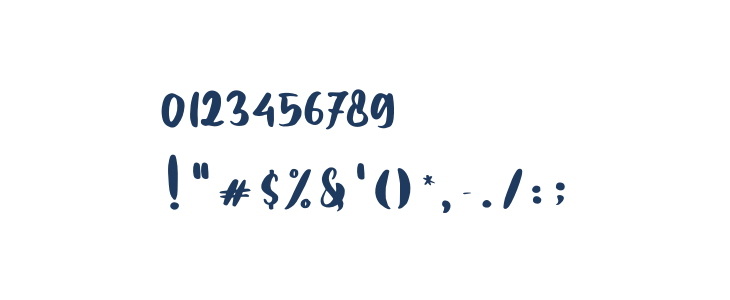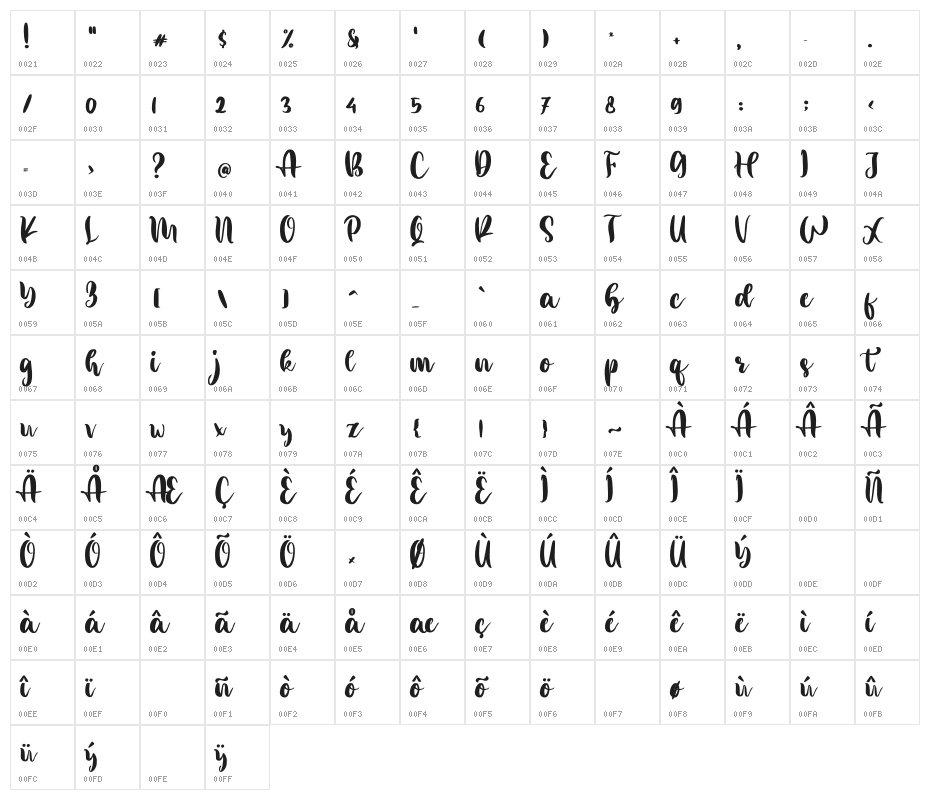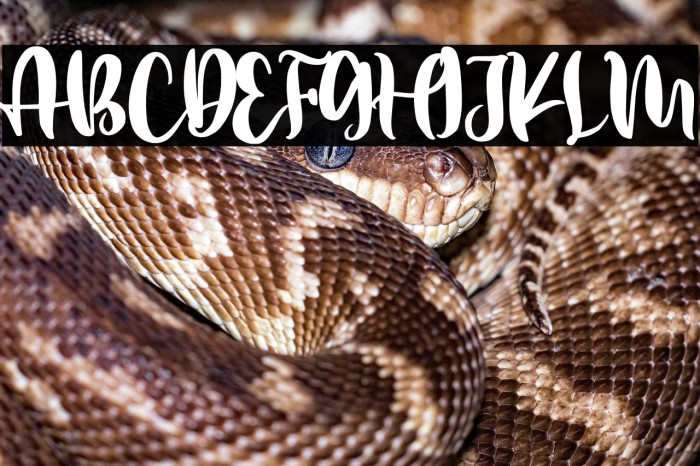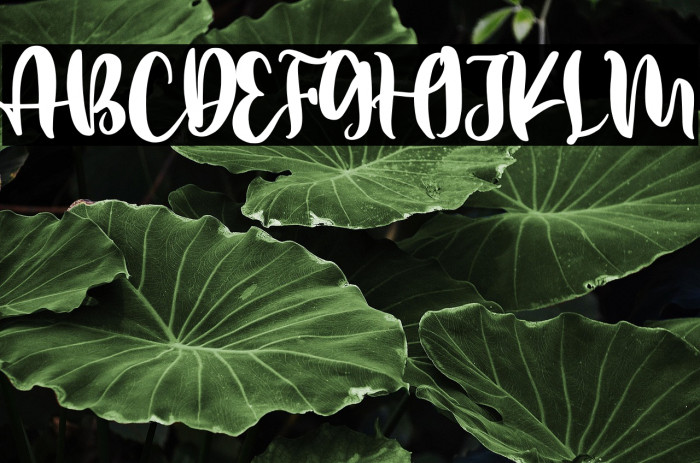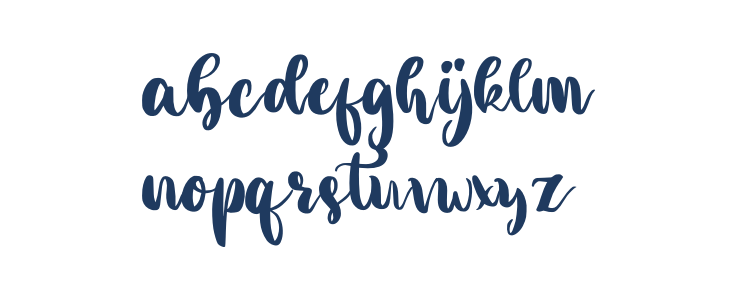
Better Weather Font
Better Weather Description
This font features a bold and expressive script style with a handwritten appearance. The letters are characterized by their fluid, flowing strokes and a playful, artistic flair. The uppercase letters are particularly striking, with dramatic loops and curves that give them a sense of movement and energy. The lowercase letters maintain this dynamic quality, with a slightly more restrained elegance. The numbers and special characters are consistent with the overall style, adding versatility to the font. This typeface is perfect for projects that require a personal touch or a creative, informal vibe.
| Use Case | Logos, Headlines, Invitations |
| Proposed Projects | Ideal for greeting cards, invitations, branding, and creative projects that require a personal touch. |